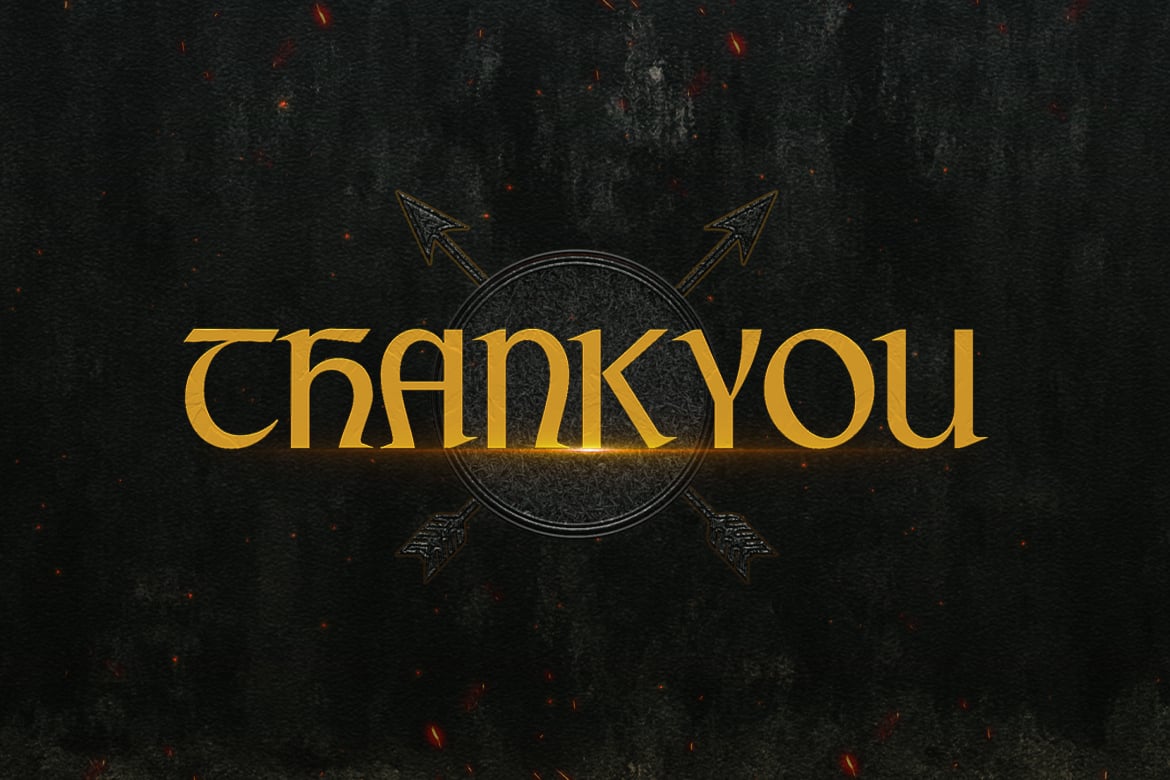
Hortens – Medieval Display Typeface
Step back in time to the days of knights and castles with “Hortens” – a medieval display typeface that’s perfect for all your historic design needs.
With its bold, angular letterforms and intricate details, “Hortens” is a font that’s sure to add a sense of grandeur to your designs. Each letter is designed to look like it’s been carved from stone, making it the perfect choice for anything from medieval-themed posters to fantasy book covers.
Whether you’re creating a logo for a medieval-themed event or designing packaging for a specialty beer, “Hortens” is the perfect font for the job. It’s also great for use in editorial design, video games, and other creative projects where a medieval-inspired font is needed.